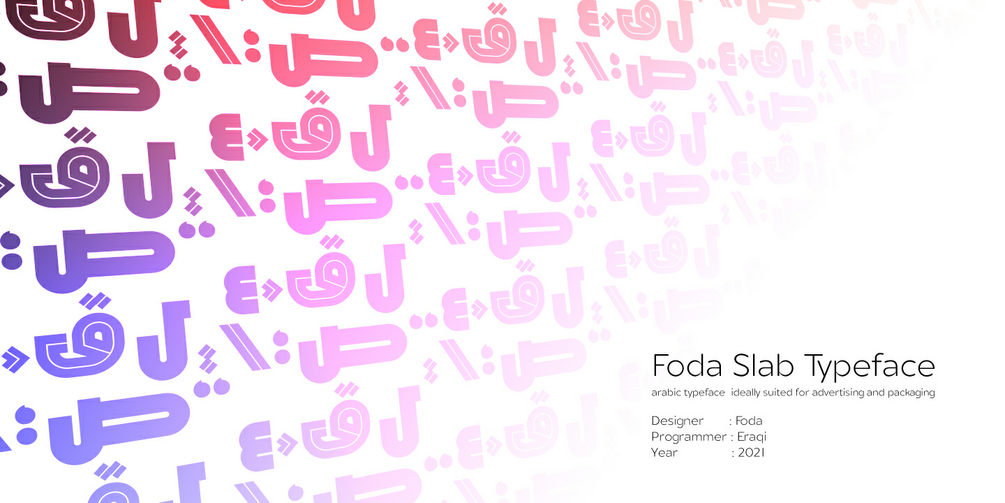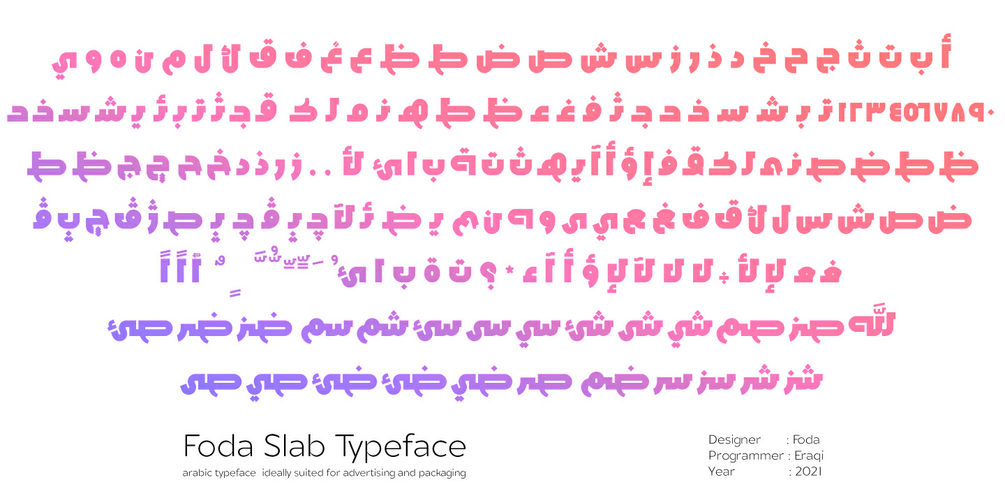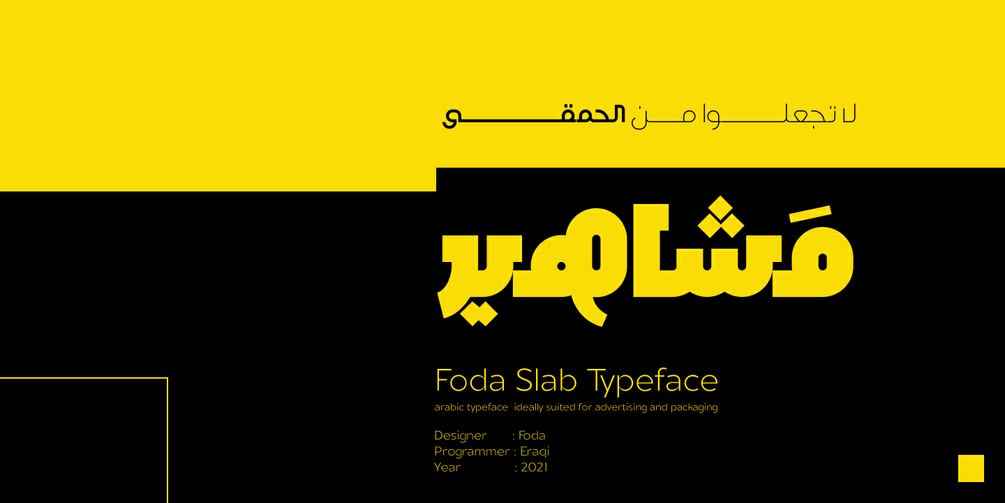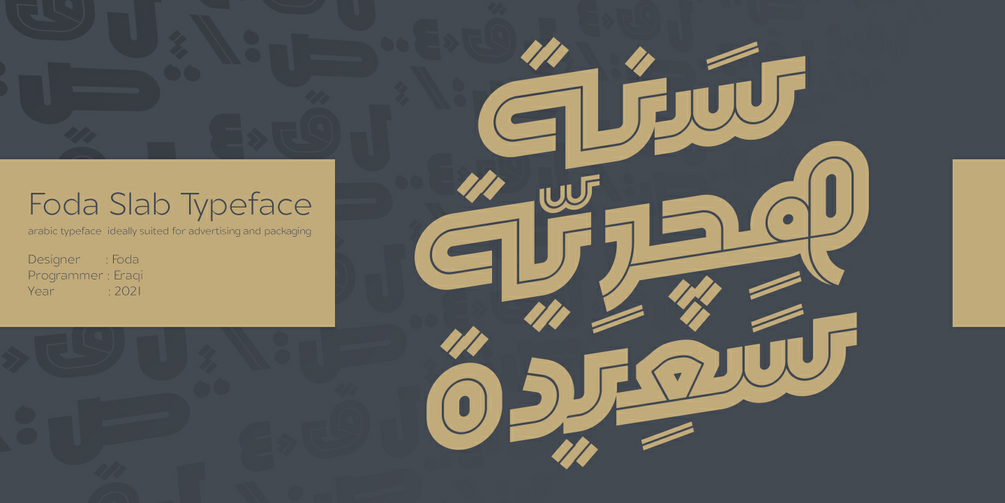
Foda Slab typeface
Foda Slab is a powerful Arabic slab typeface that has two styles : Regular and Hollow.
With 886 glyphs Foda Slab has many ligatures which makes it suitable for headlines and other different graphic contexts.